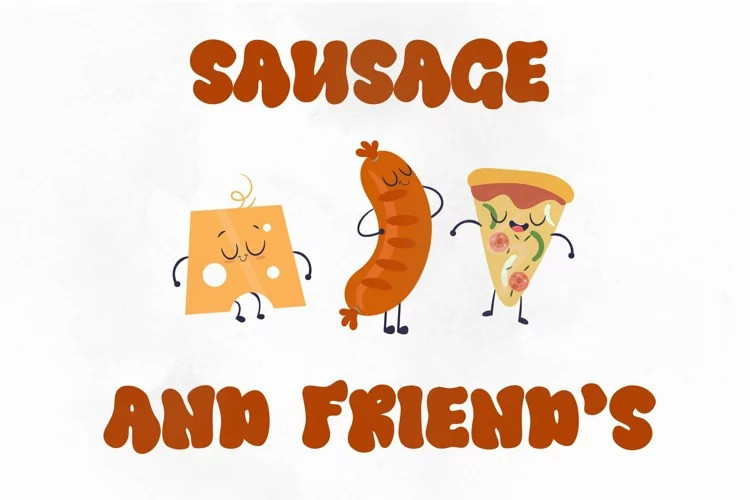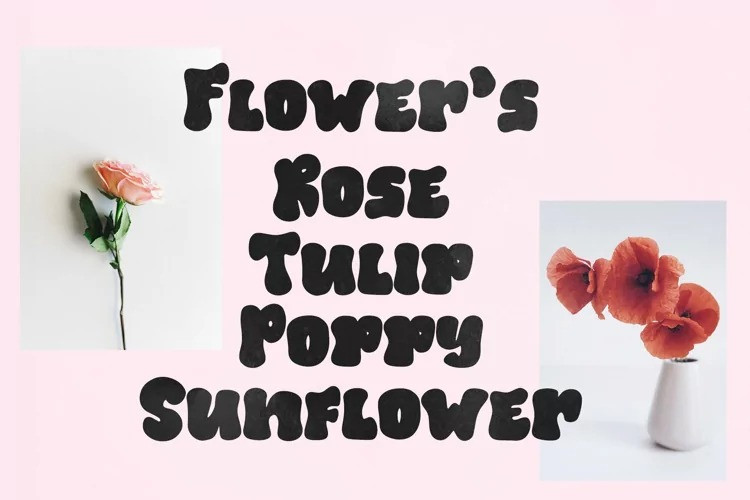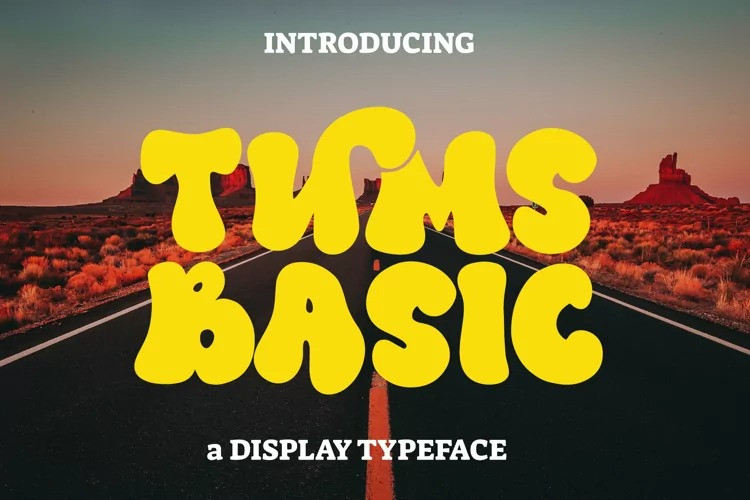
Tums Basic Font
Tums basic Display Font is a basic font of all tums series. This font features unique design elements in each glyph simulating a love effect